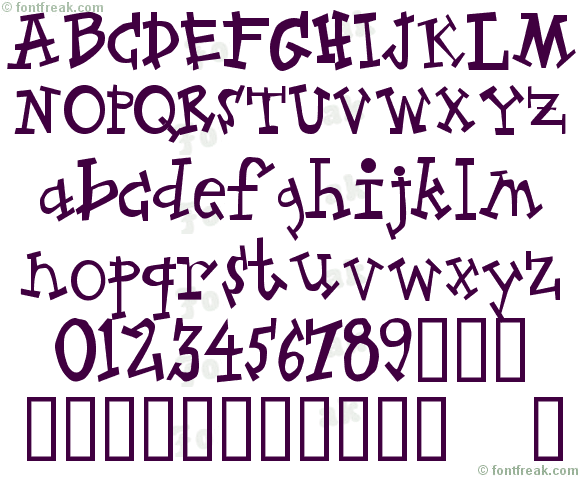
Zeppelin
The Zeppelin font by Jenny Barck, created in 1997, is a striking display typeface that merges contemporary flair with a playful aesthetic. As a decorative font, its unique strokes and whimsical shapes make it a standout choice for various design projects. The font features a medium stroke weight with subtle contrast, giving it a bold yet approachable appearance. The letterforms are slightly condensed with a balanced spacing that enhances readability while maintaining an artistic flair, making them suitable for eye-catching designs.
This font is ideal for a variety of creative applications. Its vibrant character makes it perfect for wedding invitations, where a touch of elegance is desired without sacrificing personality. Additionally, Zeppelin is well-suited for movie posters, where its distinctive style can effectively convey the film's theme or genre. Restaurant menus can also benefit from this font's creative energy, drawing attention to specialty items and chef recommendations. Furthermore, small business branding and promotional materials can leverage the Zeppelin font to create a memorable identity that resonates with customers.
Targeted primarily at graphic designers, small business owners, and content creators, Zeppelin provides an engaging and versatile option for any project requiring a bold statement. Its freeware license allows for easy access and experimentation, making it a valuable resource for designers looking to enhance their portfolios without financial constraints.
What truly sets the Zeppelin font apart is its ability to combine fun and functionality. Its playful design elements don’t compromise readability, making it a perfect choice for both print and digital mediums. With the Zeppelin font free download, you can easily incorporate this unique typeface into your next creative endeavor, ensuring your designs leave a lasting impression.